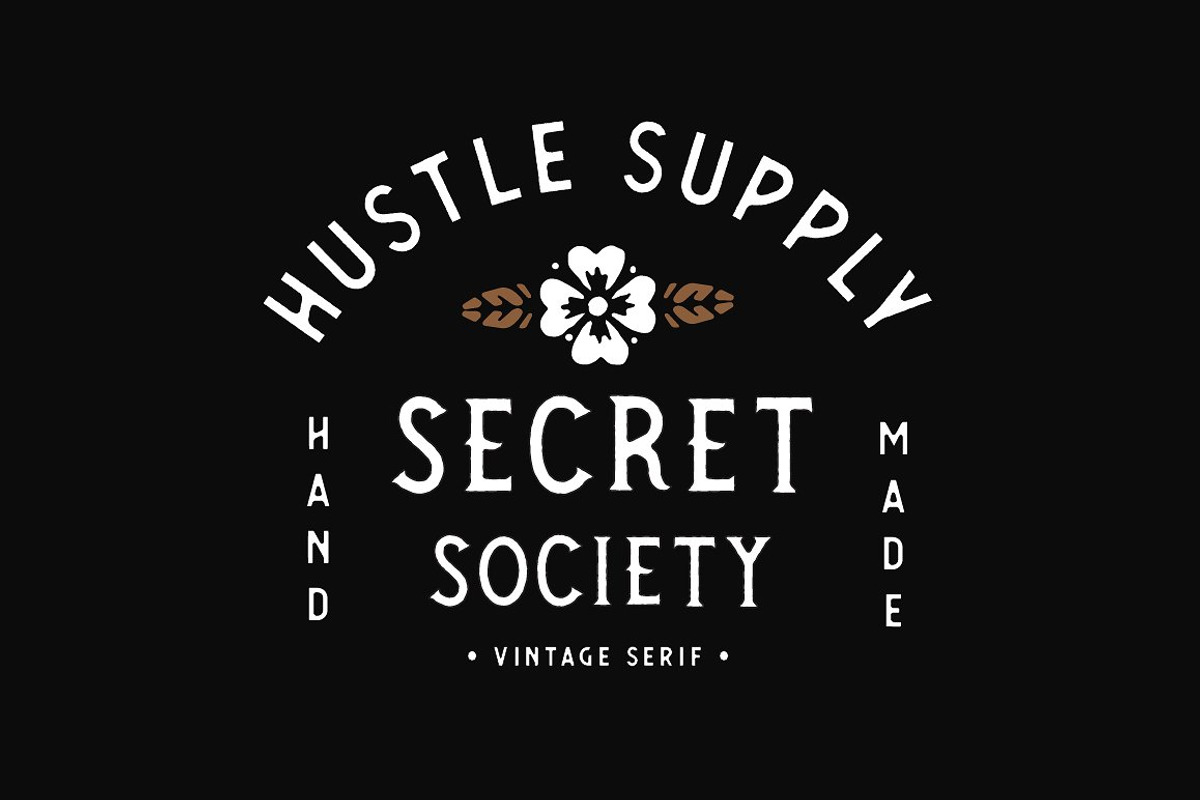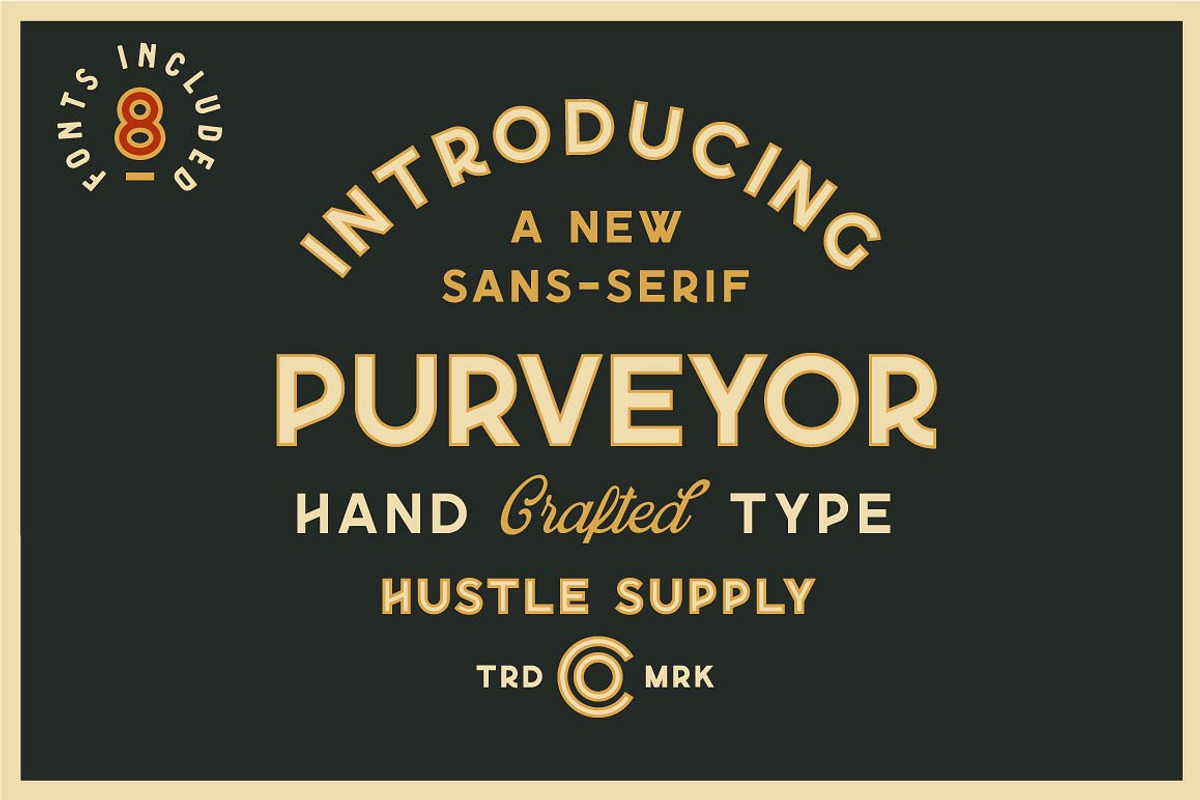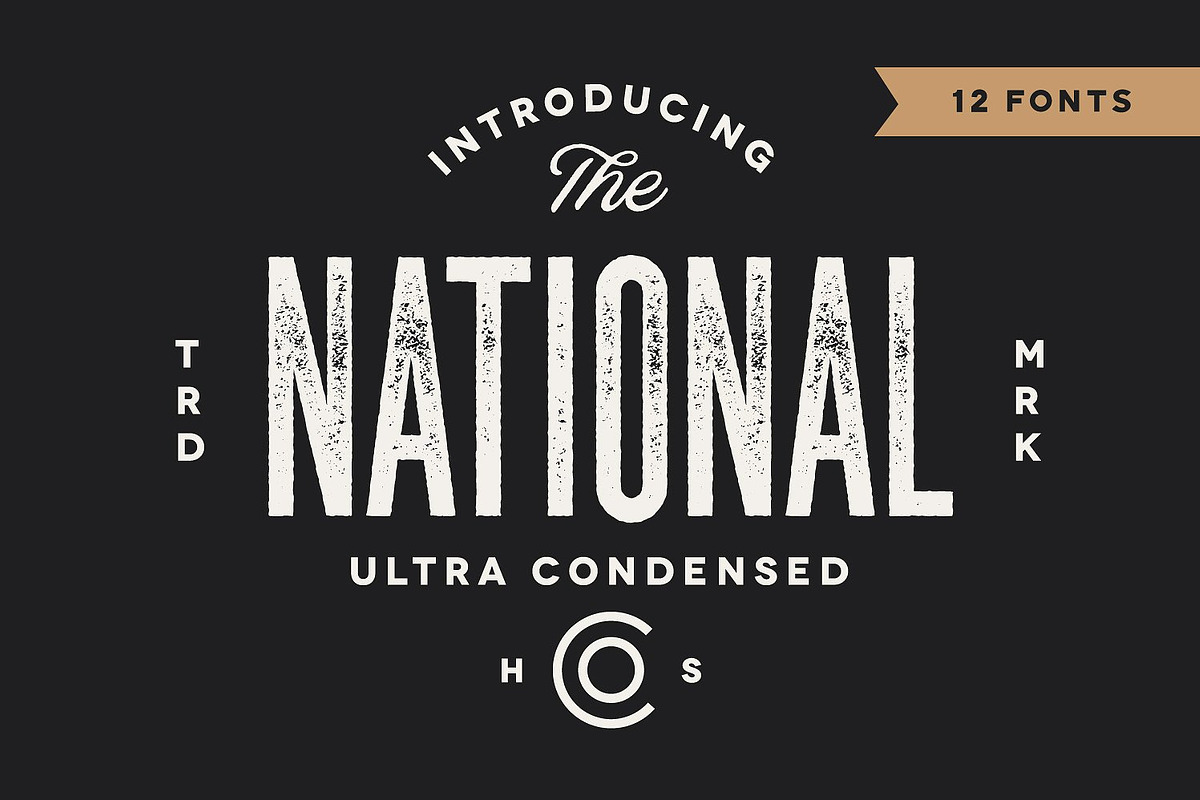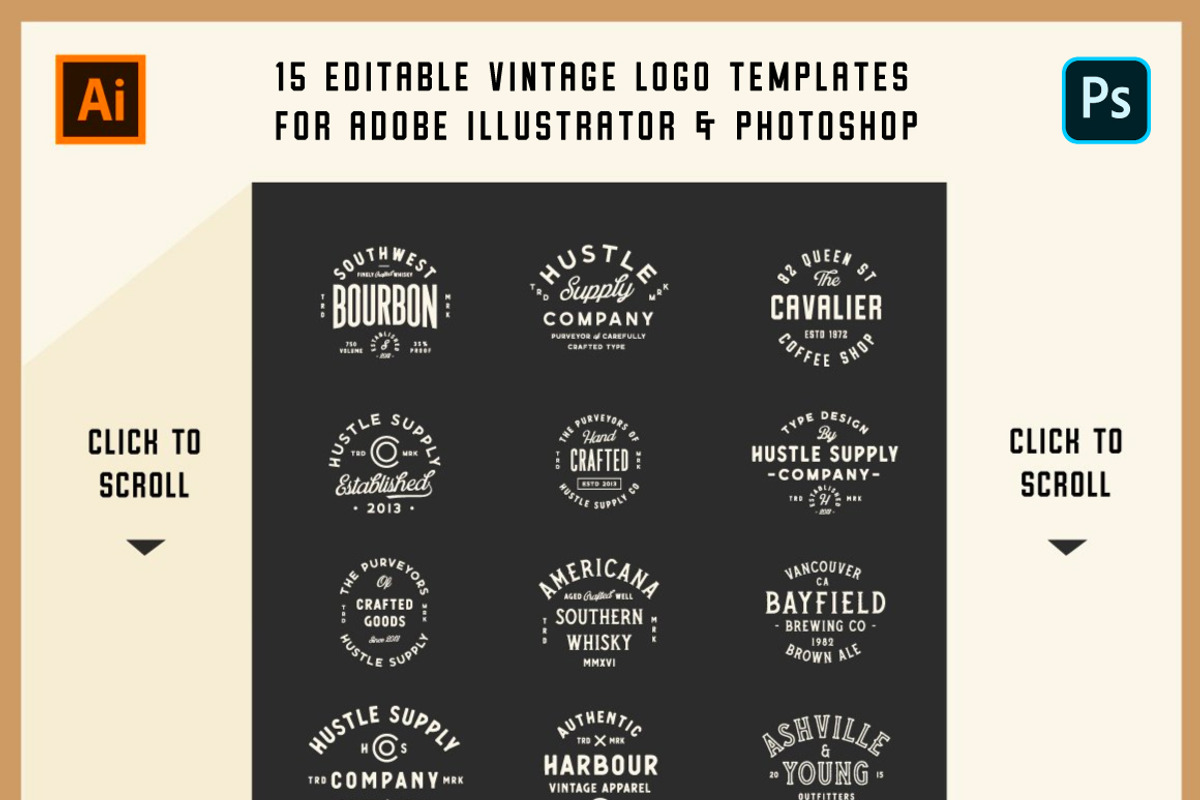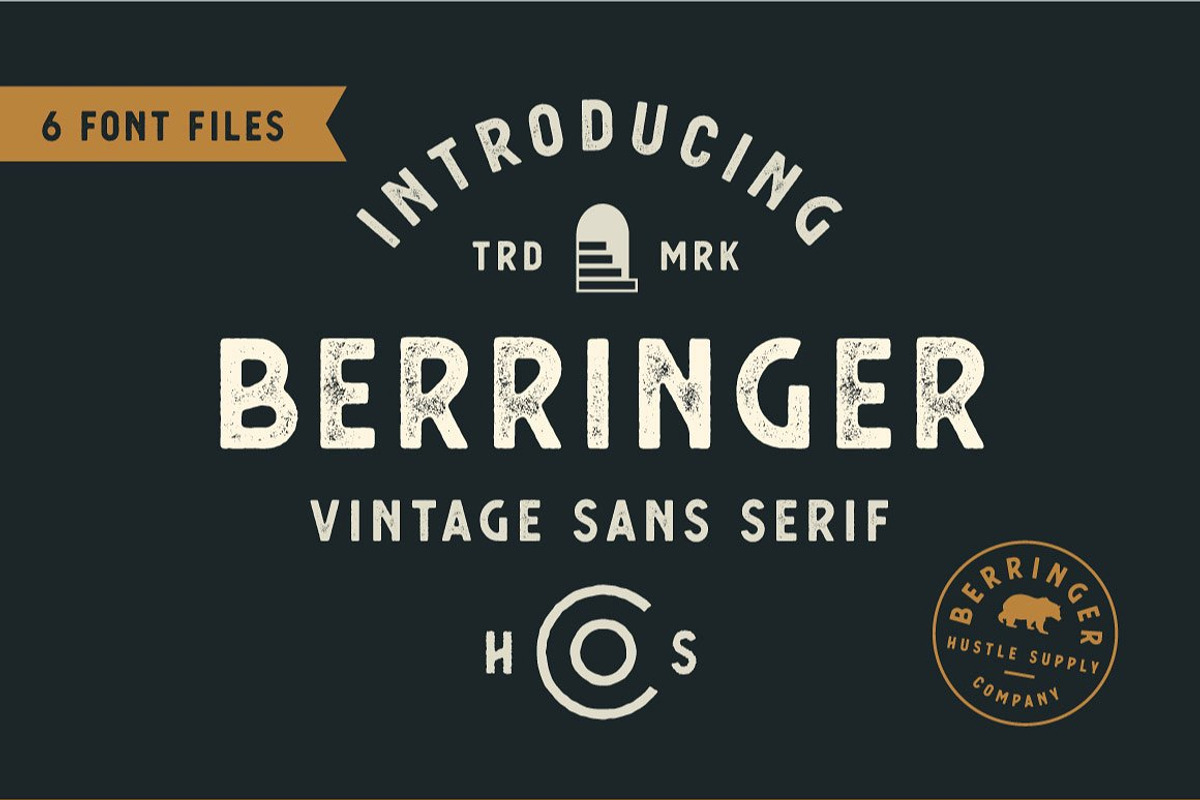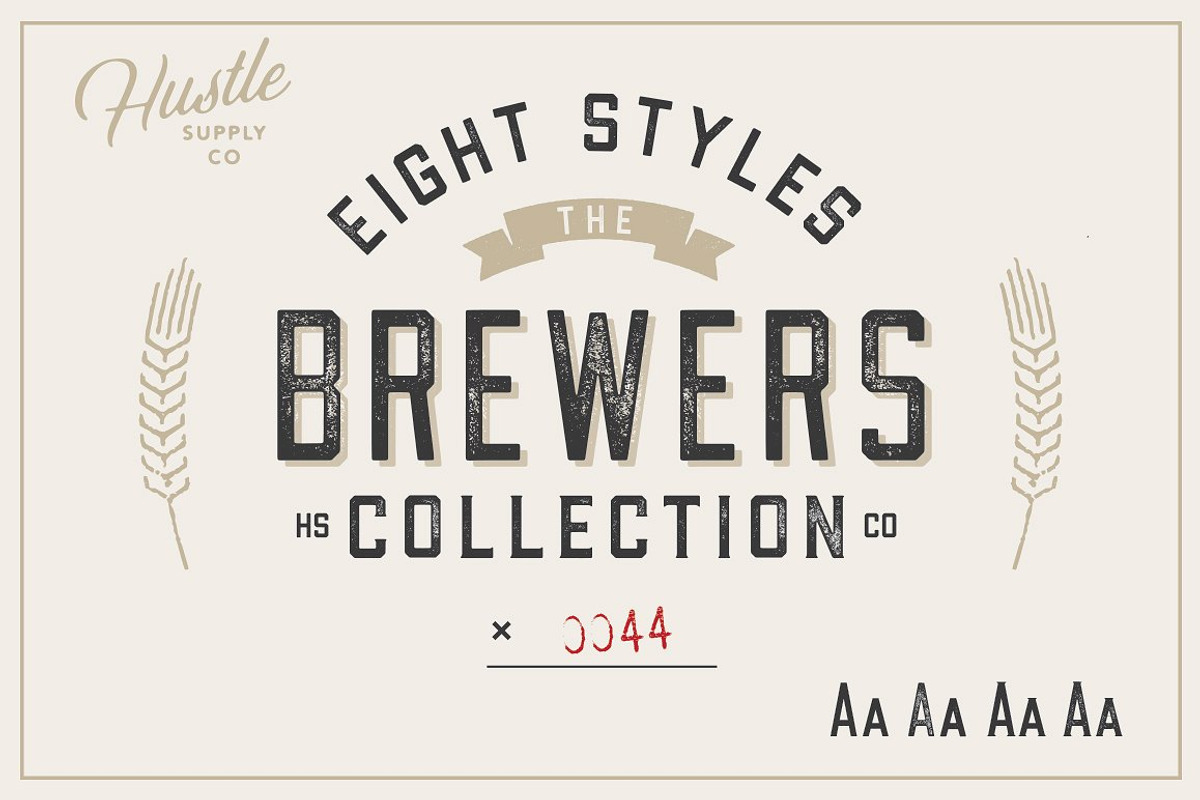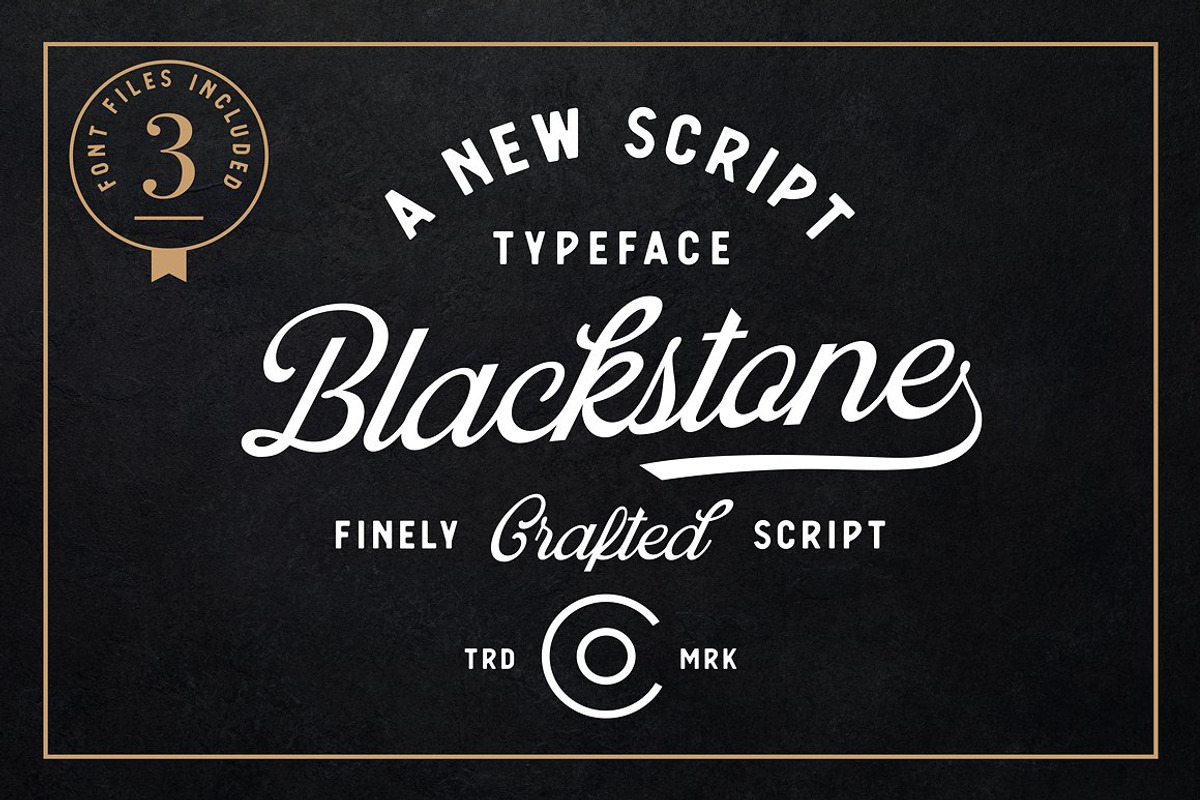
The Collector's Font Bundle
Hustle Supply Co. By Jeremy Vessey
The Collector's Font Bundle is a carefully curated group of recent Type Families that pair perfectly with one another. This is the most comprehensive, high quality bundle that Hustle Supply Co. has ever released.
53 Fonts in Total from 8 Different Type Families:
Purveyor: 8 Fonts Included
The National: 12 Fonts Included
Berringer: 6 Fonts Included
Oatmeal Stout: 6 Fonts Included
Gastro Pub: 6 Fonts Included
Blackstone: 3 Fonts Included
Secret Society: 4 Fonts Included
Brewers Collection: 8 Fonts Included
I've been working on this project for over a year. I wanted to create individual products that can work seamlessly with one another. This bundle is over a years worth of carefully crafted typefaces that pair perfectly with each other!
I wanted to create a Bundle that was truly something that Designers could use for the rest of their careers. A set of fonts that work perfectly together, a cohesive collection.